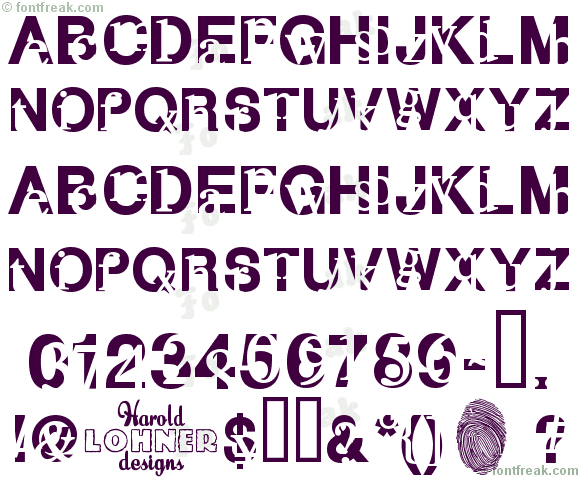
Subtext
Subtext, designed by Harold Lohner in 2001, is a striking display font that expertly balances modern aesthetics with a touch of whimsy. This sans-serif typeface features unique visual characteristics, including variable stroke weights that create a dynamic rhythm across its characters. The font exhibits a playful contrast between thick and thin elements, enhancing its visual appeal while maintaining readability. The spacing is well-calibrated, ensuring that each letter stands out clearly, making it an excellent choice for eye-catching designs.
Subtext excels in a variety of specific use cases. Its distinctive style is perfect for wedding invitations, where it can add a modern twist to traditional layouts. Additionally, it works well for movie posters, giving an artistic flair that captures attention. Restaurant menus can also benefit from Subtext, as its unique design can help convey the personality of the dining experience. Moreover, small business branding and marketing materials can utilize this font to create memorable and engaging visuals that resonate with their target audience.
Graphic designers, content creators, and small business owners will find Subtext particularly appealing due to its versatility and unique charm. This font is not just a tool; it’s a creative asset that can elevate projects across various mediums.
What truly sets Subtext apart is its ability to blend artistic flair with functionality. This font stands out for its distinctive design that invites curiosity while remaining practical for everyday use. Whether you’re looking to make a statement or simply add a modern touch to your projects, the Subtext font free download offers a unique solution that inspires creativity and innovation.